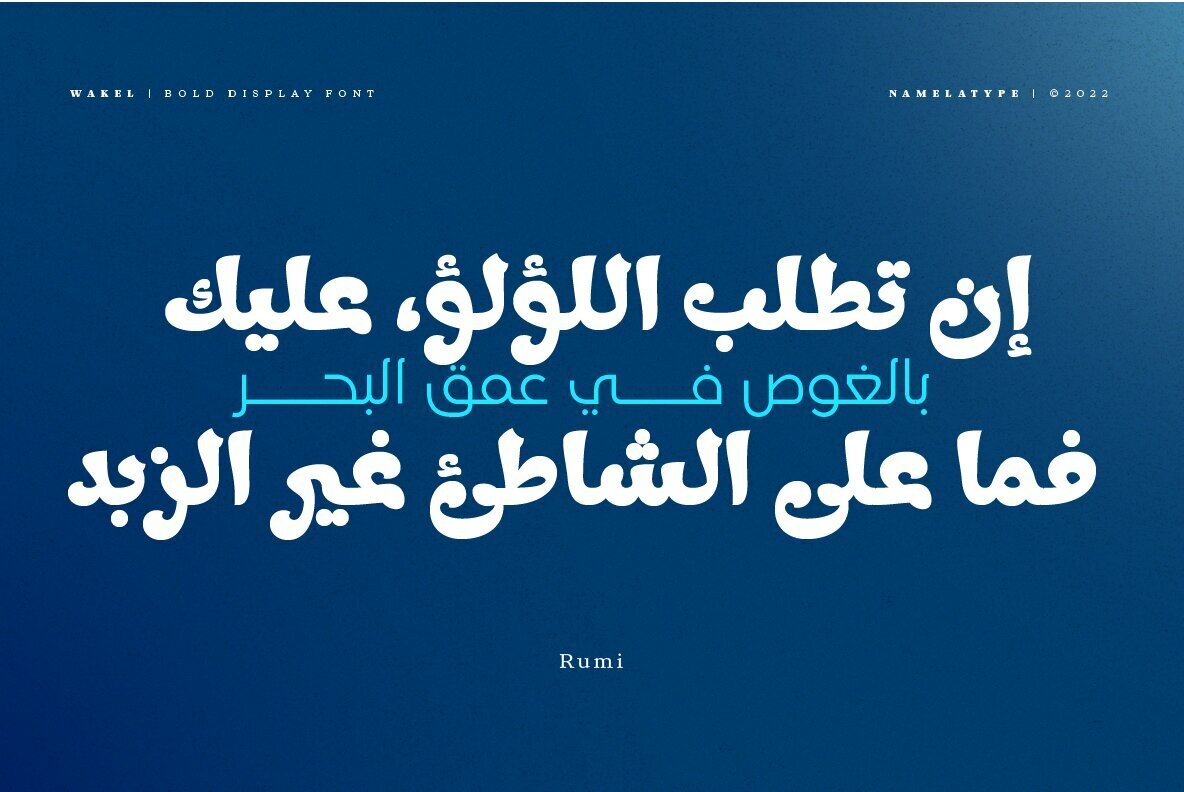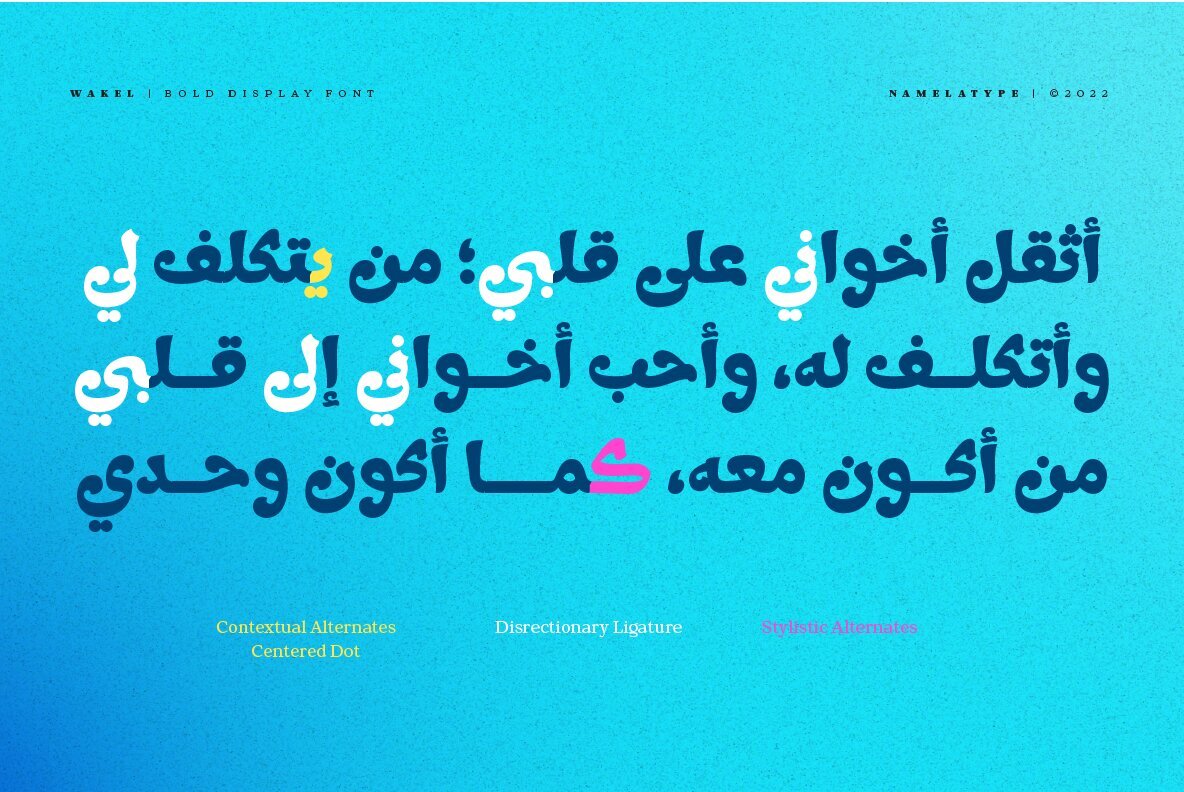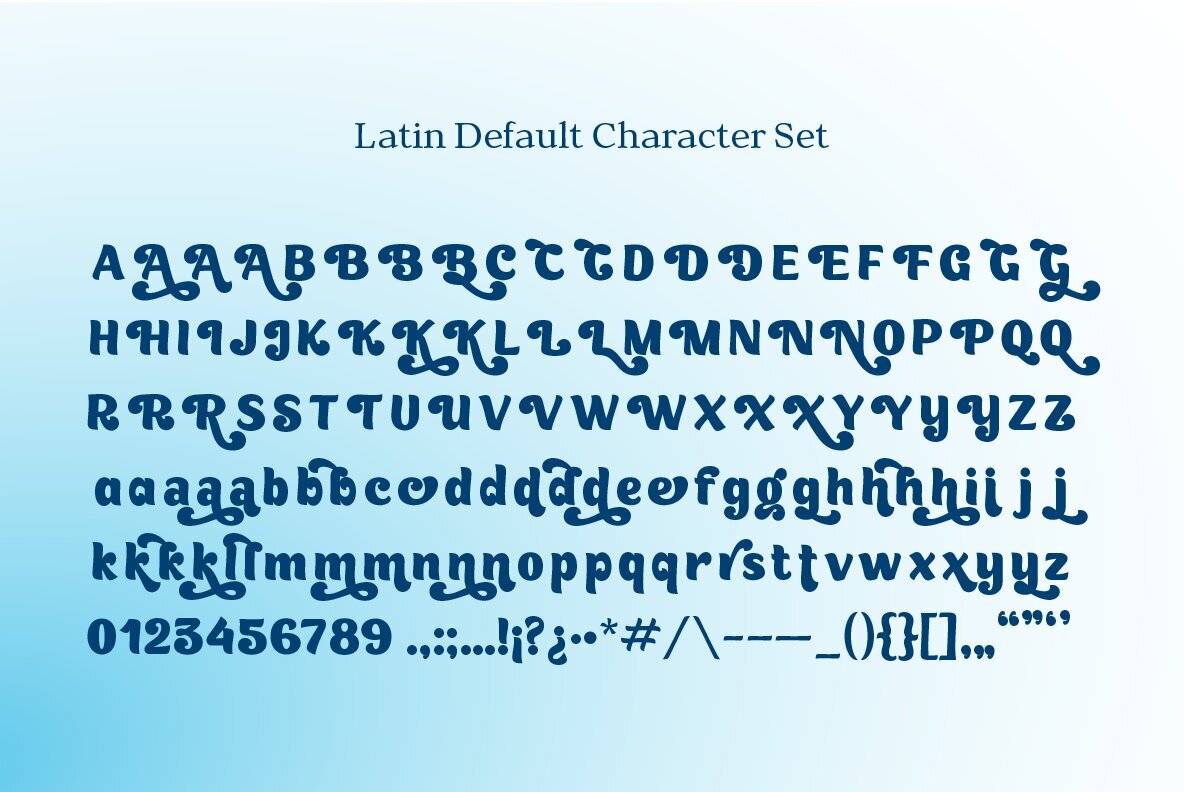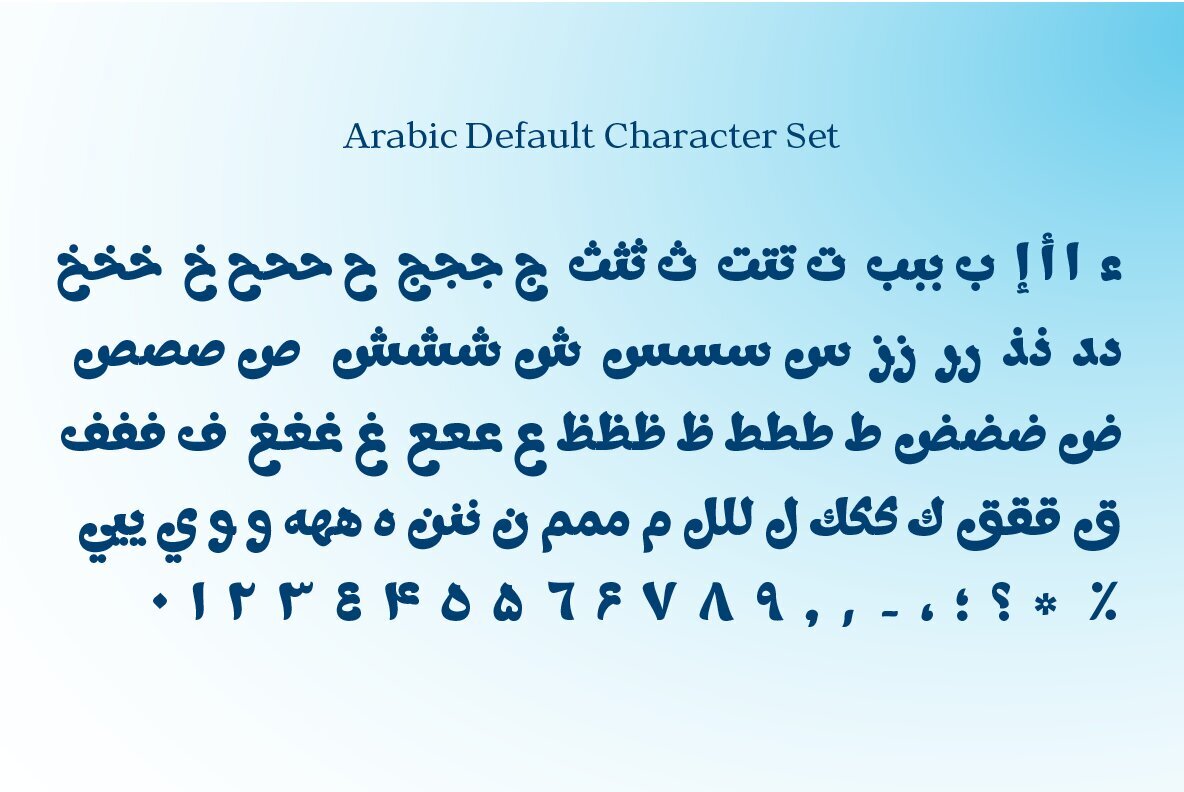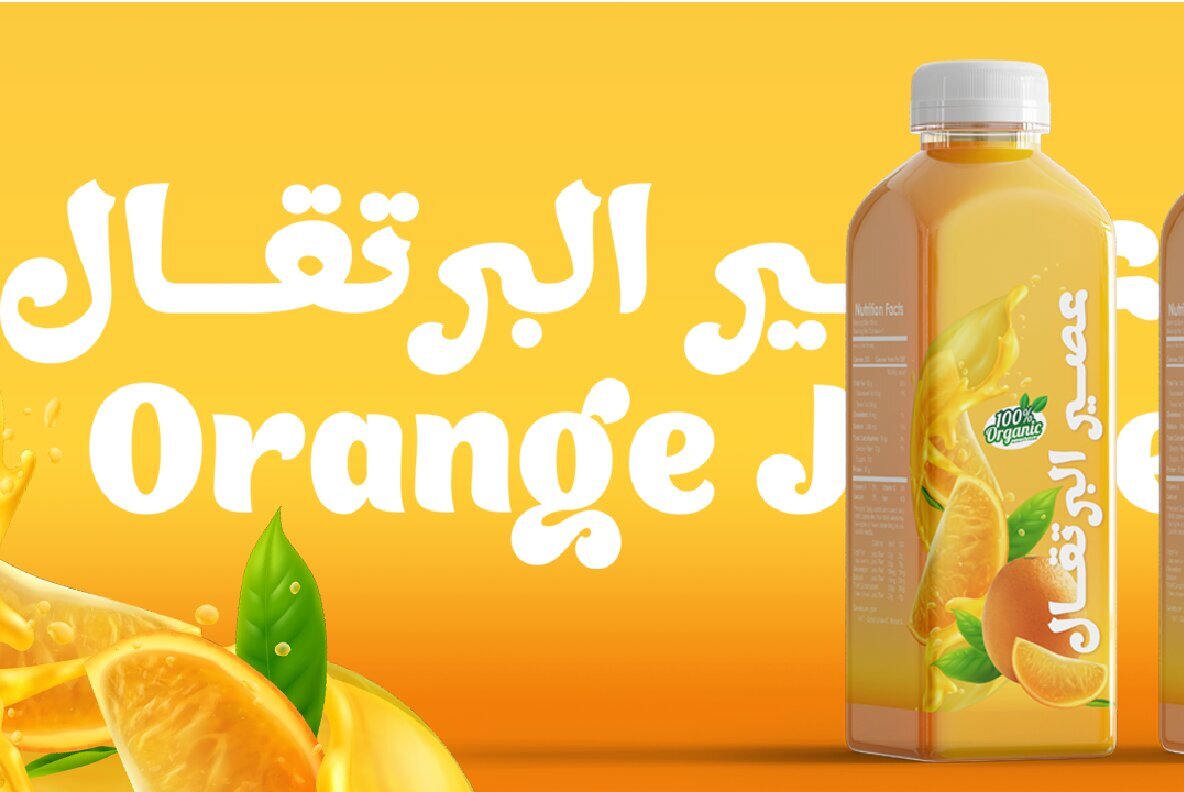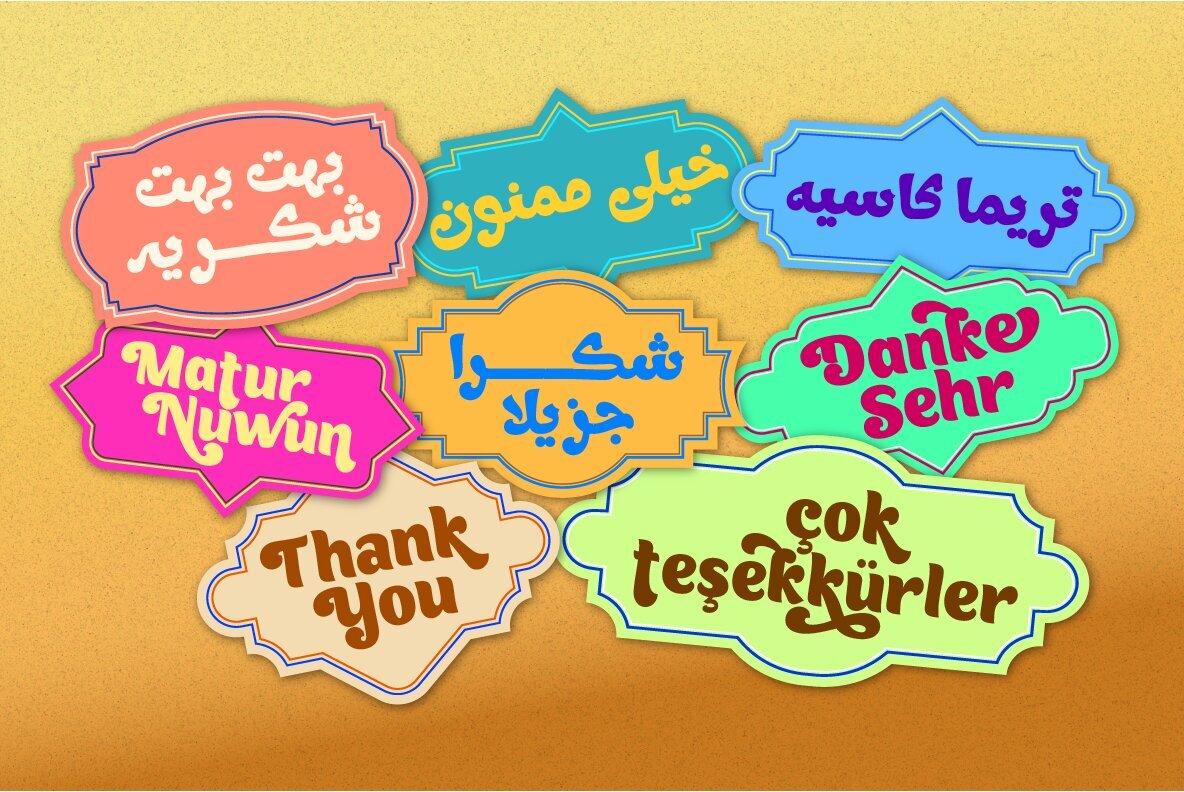
Wakel Font
Wakel Regular
Wakel Arabic
Wakel is a Bold Display font that consisting on bilingual scripts, Latin and Arabic.
The Arabic script was built based on the Naskh style. Wakel has approachable, fashionable and humanist look with low contrast and attractive curvature terminal.
Wakel is great for large display projects, branding, package designs & much more!